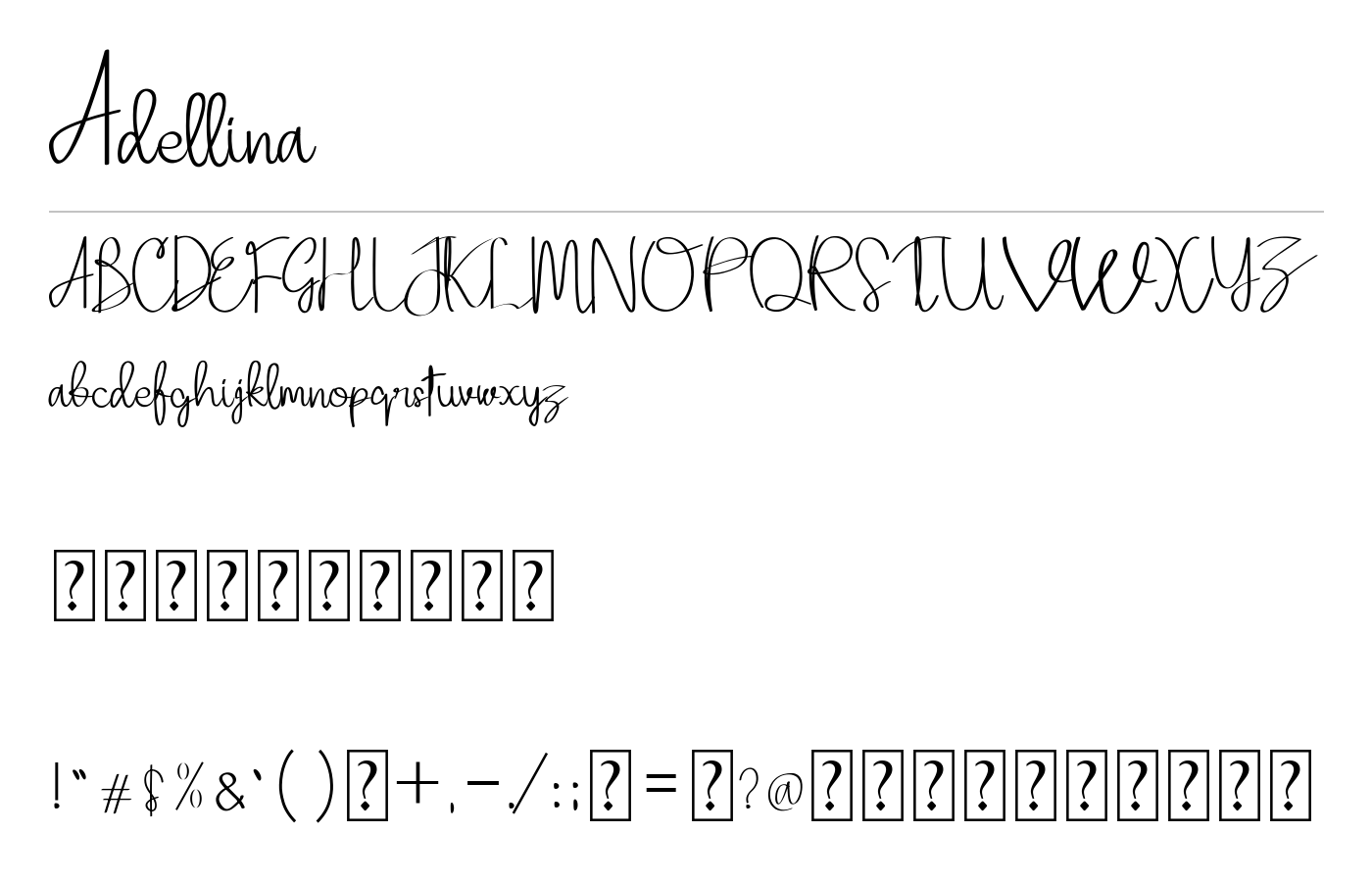
Adellina is a delicate, handwritten script font characterized by its tall, slender letterforms and elegant, flowing lines. It has a playful yet refined personality, making it perfect for feminine branding, invitations, and fashion-related projects where a personal, stylish touch is desired. Its light weight and airy feel work best in larger sizes for headlines or decorative accents rather than body text.
About Adellina Font